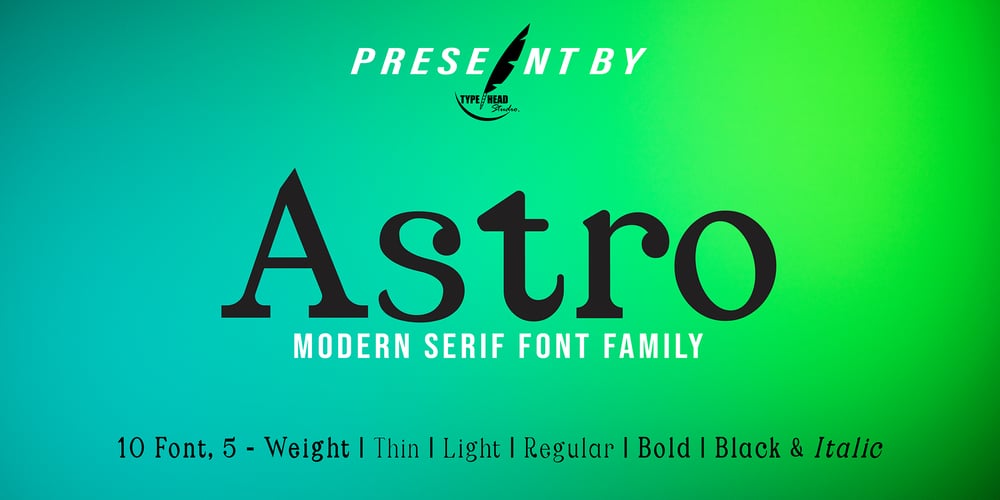
Astro Serif Font Family was designed by Gatot Triardi Pramaji and published by Typehead Studio. Astro Serif contains 10 styles and family package options. Introducing Astro, a charming serif font designed to bring an elegant and classic touch to your designs. Crafted with meticulous attention to detail and inspired by mid-millennium Serifs, Astro seamlessly blends traditional sophistication with contemporary elements, making it suitable for a variety of design projects, both print and digital.Enchanting Letter Shape Designs:Astro exudes charm with its letter design that is heavily inspired by the mid-millennium Serifs often found in European and American designs. Each letter is carefully carved to create a charming and luxurious impression.Unique Alternative Glyphs:Astro is not just a font; it is a standout typographic masterpiece. By offering several unique alternative glyphs, such as the letters a, g, and k, Astro gives designers the freedom to express their creativity in a unique and personal way.Mid-Millennium Serif Elegance:Astro features smooth lines and proportions, creating an elegant impression characteristic of mid-millennium Serifs. This design provides a timeless classic touch making it suitable for a variety of design needs, including books, magazines, posters and other printed materials.Ease Readability:While the Astro exudes striking elegance, its design also prioritizes readability and comfort. Each letter is created with balanced proportions and optimal contrast, ensuring text appears clear and easy to read, whether on a large or small scale.Flexible Use:Astro is designed to provide flexible use across a variety of design platforms. From the logo design to the magazine layout, Astro adapts beautifully, maintaining a consistent feel that enhances the aesthetic quality of the design.European and American inspiration:Astro creates a bridge between European and American typographic styles, combining the best elements of both traditions. This makes it the perfect choice for projects that combine elements from both continents.Astro is more than just a font, it is an artistic statement that leaves an unforgettable impression on any design project. Suitable for designers who appreciate classic beauty and modern uniqueness, Astro brings a special and charming feel to every character it creates.